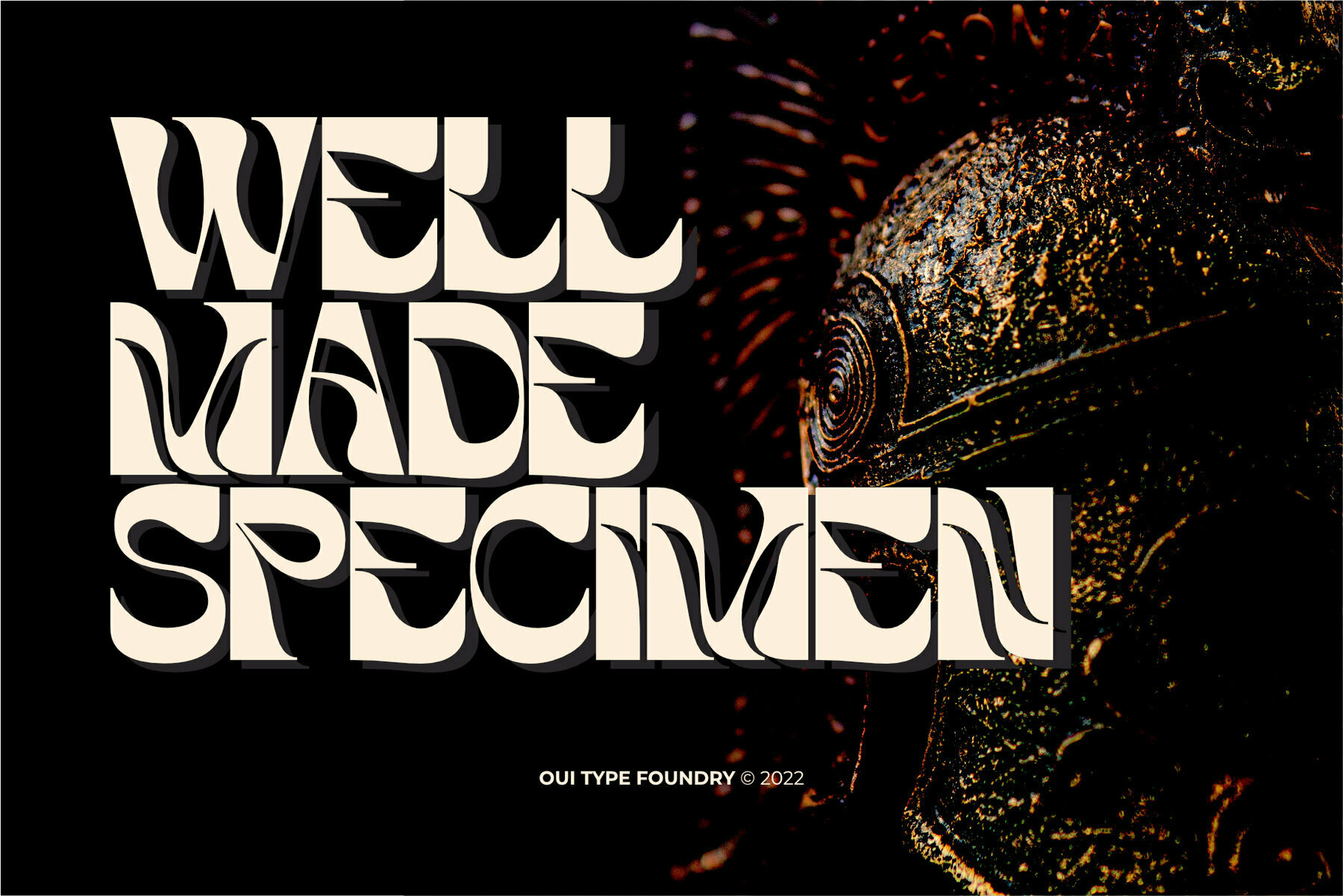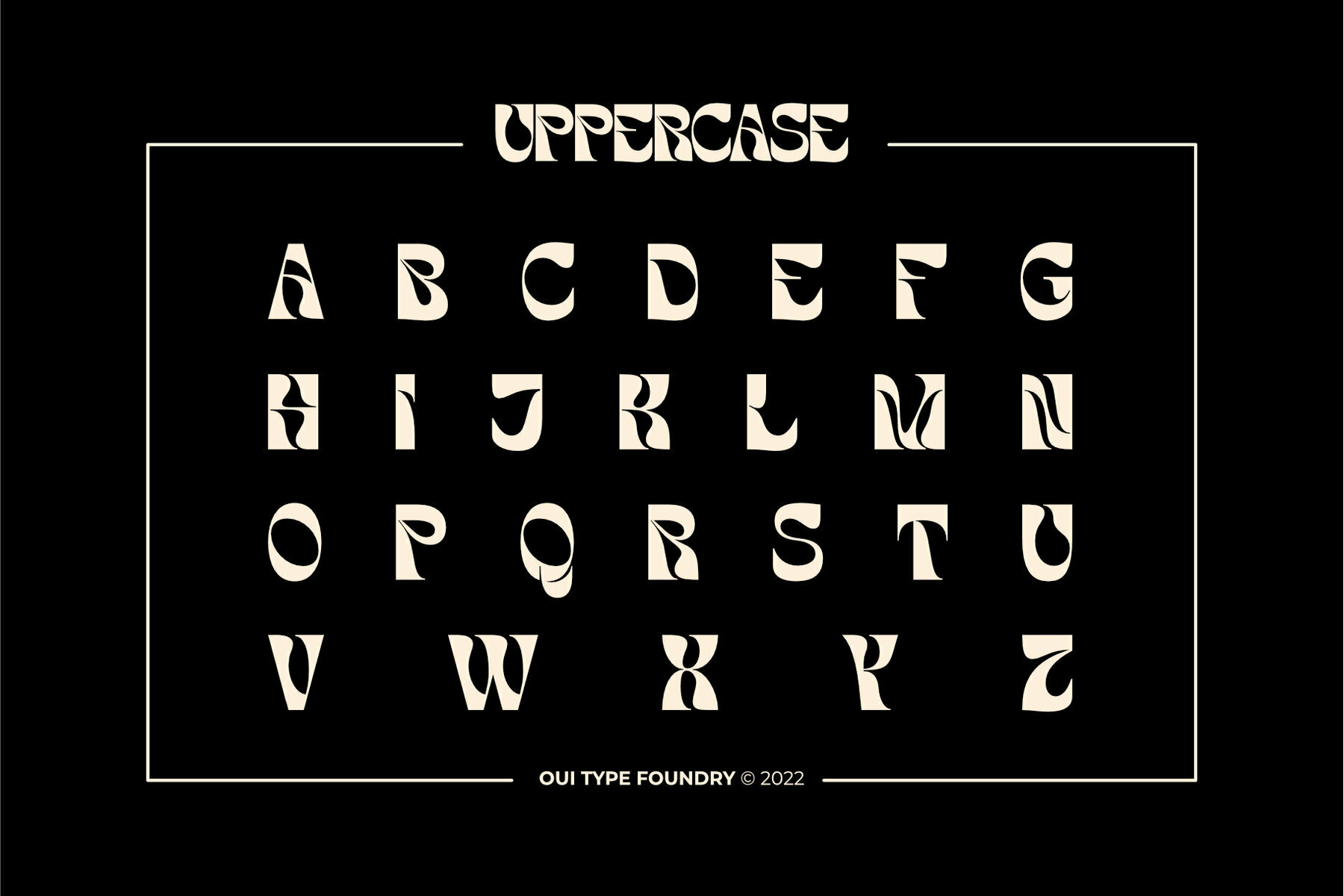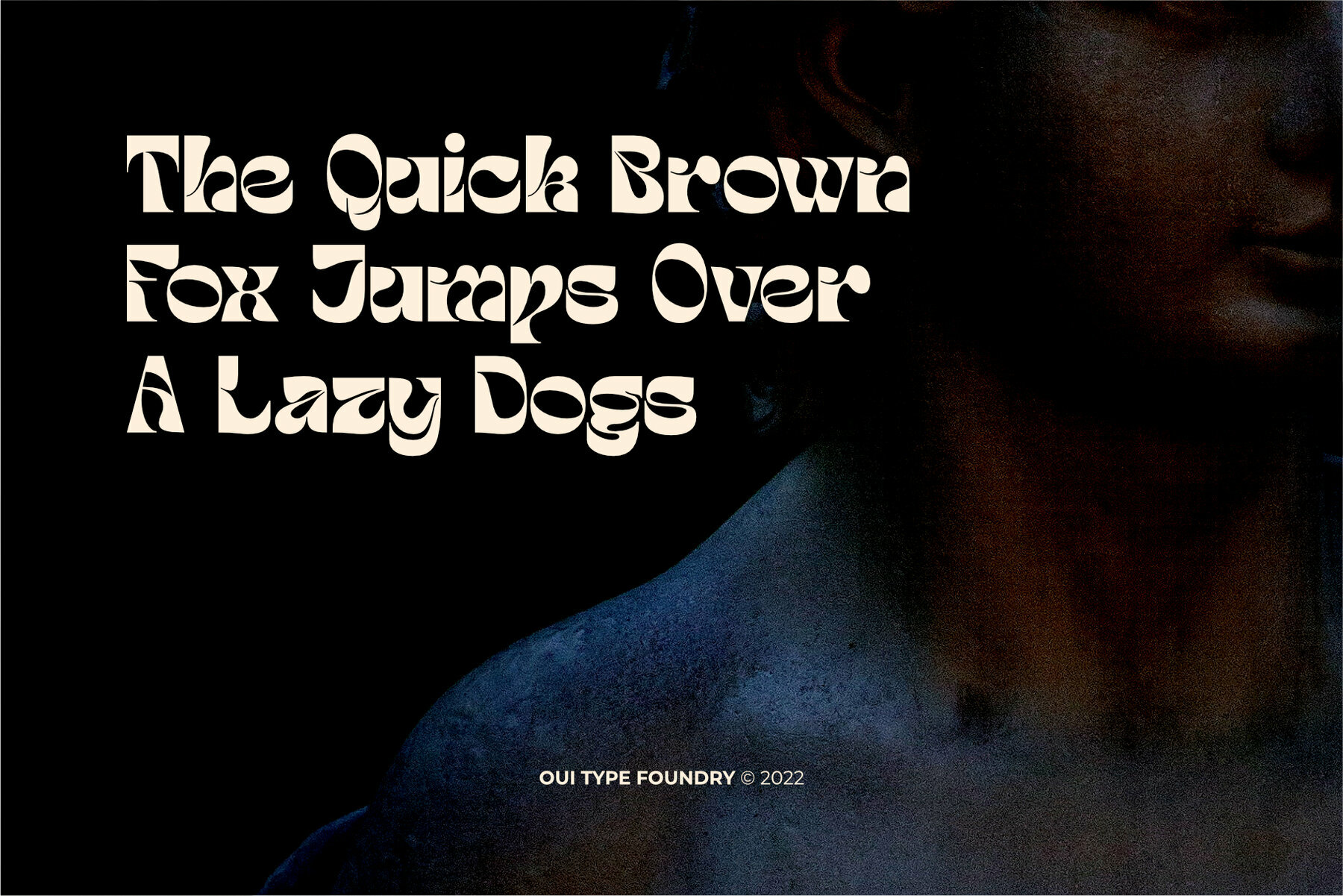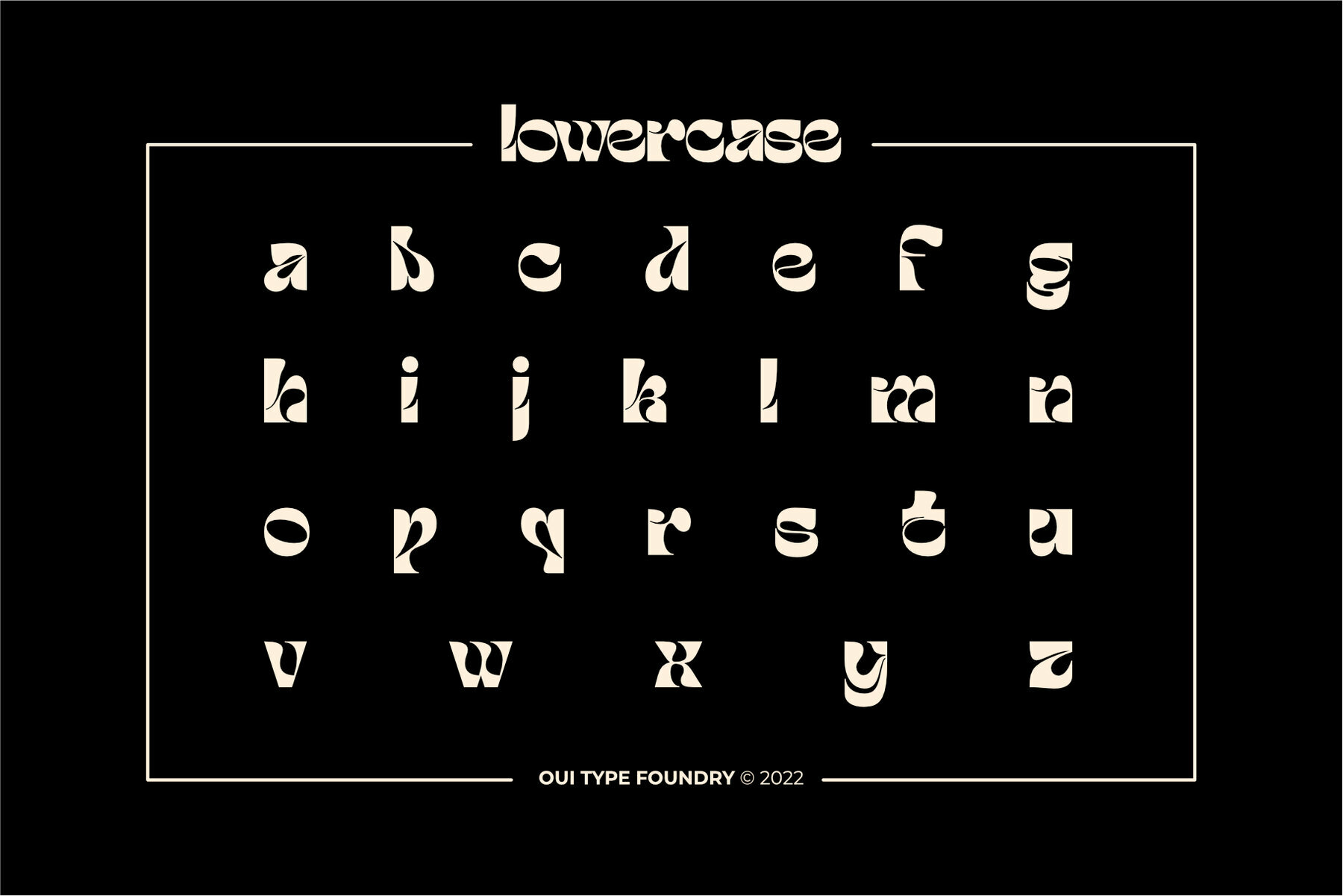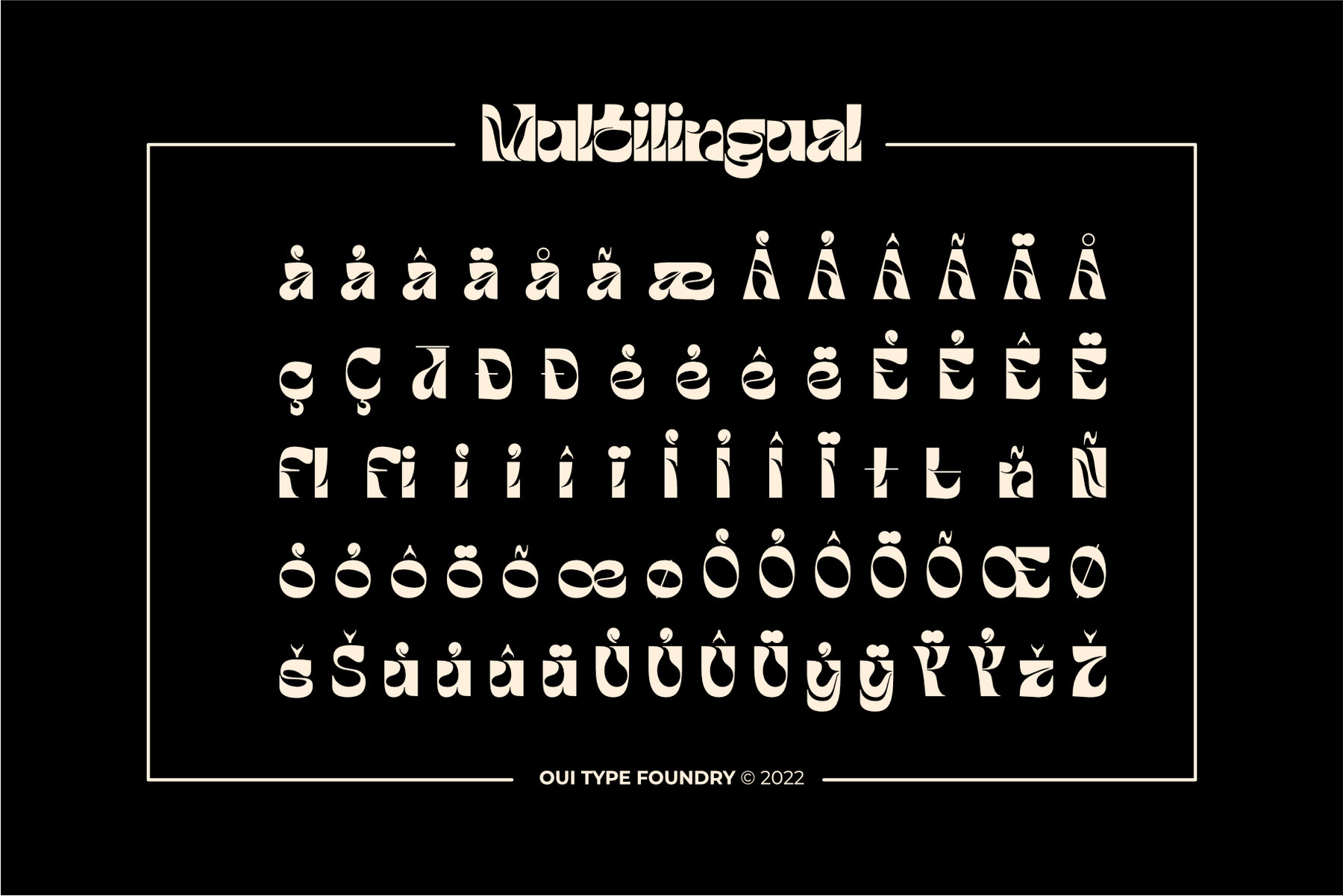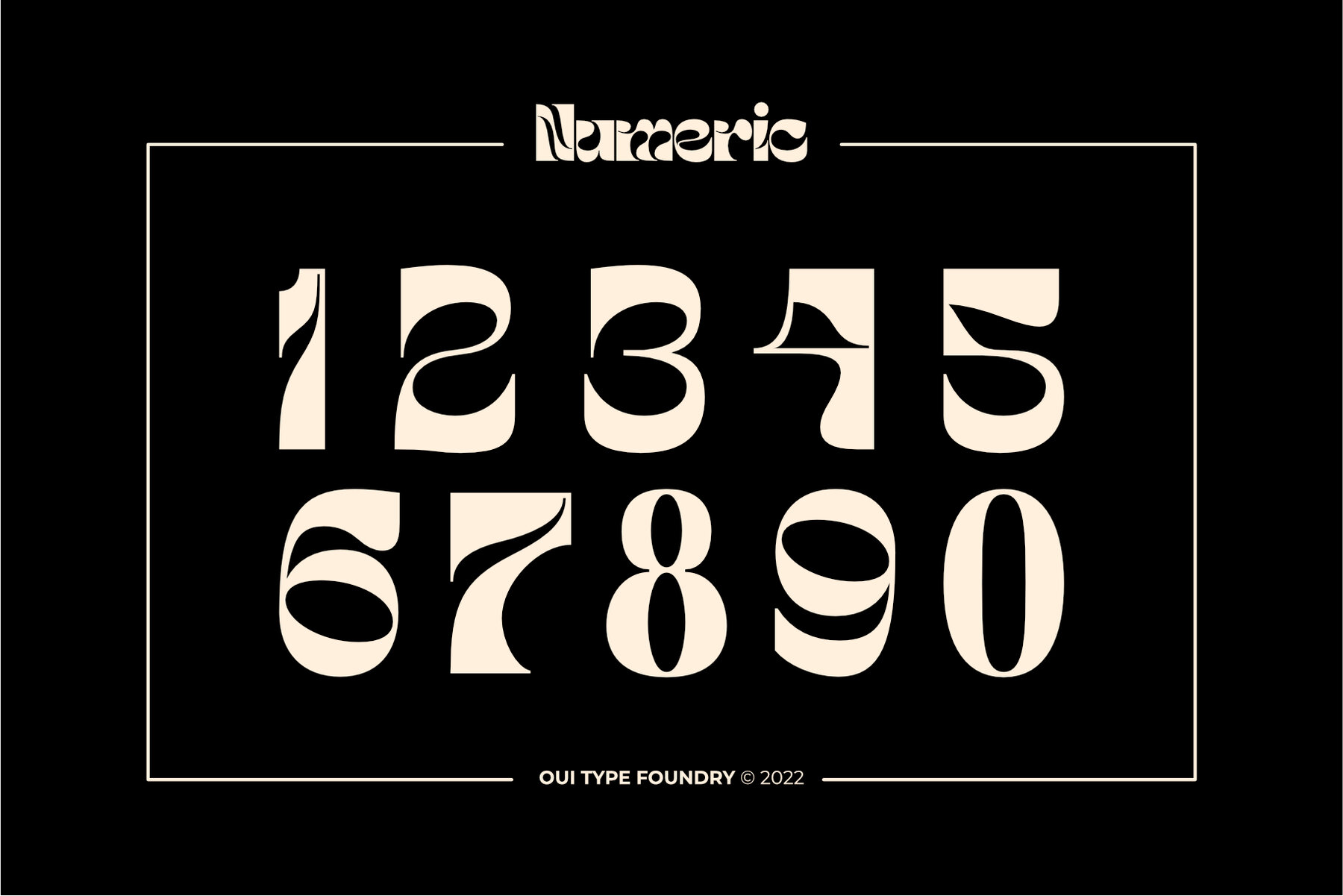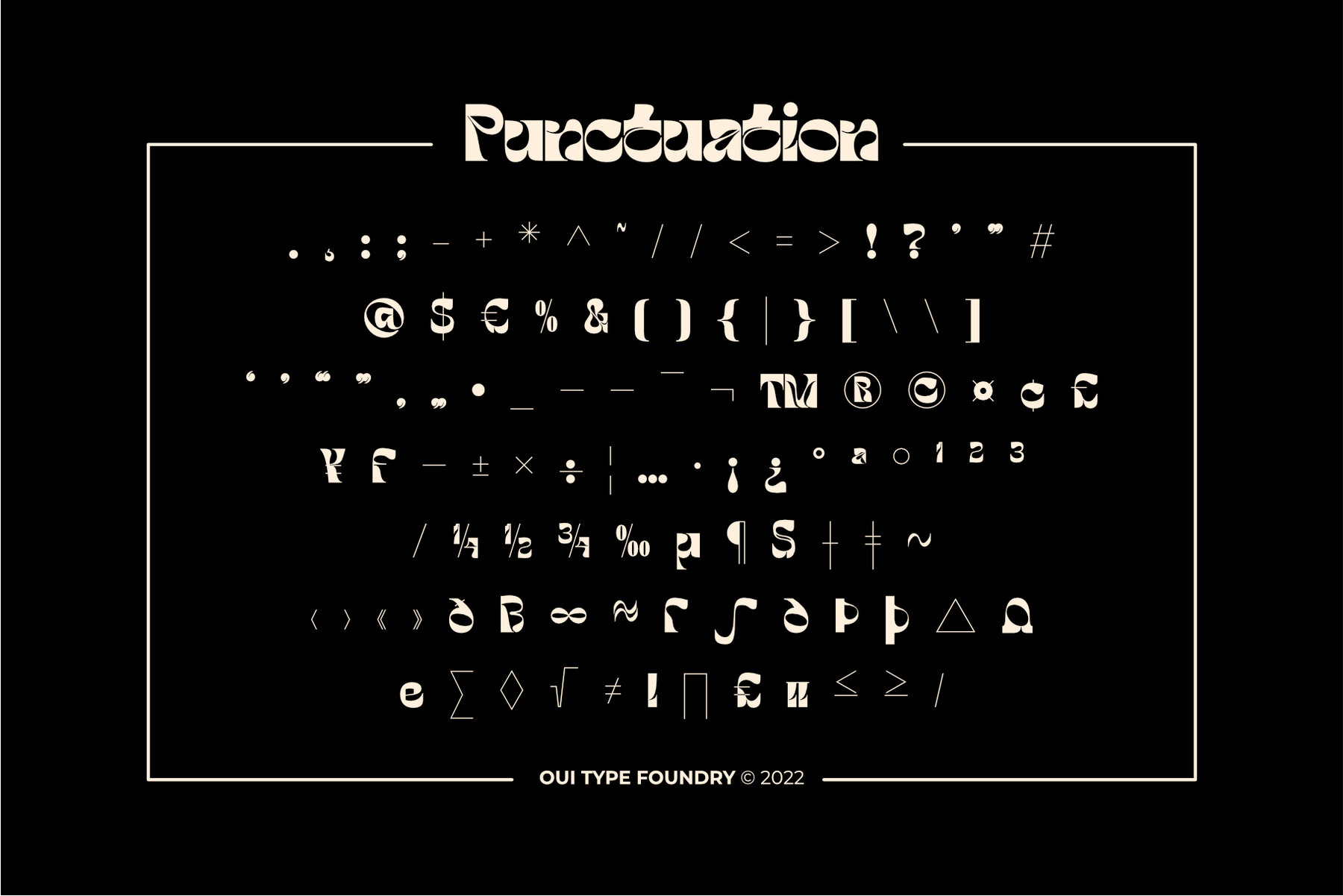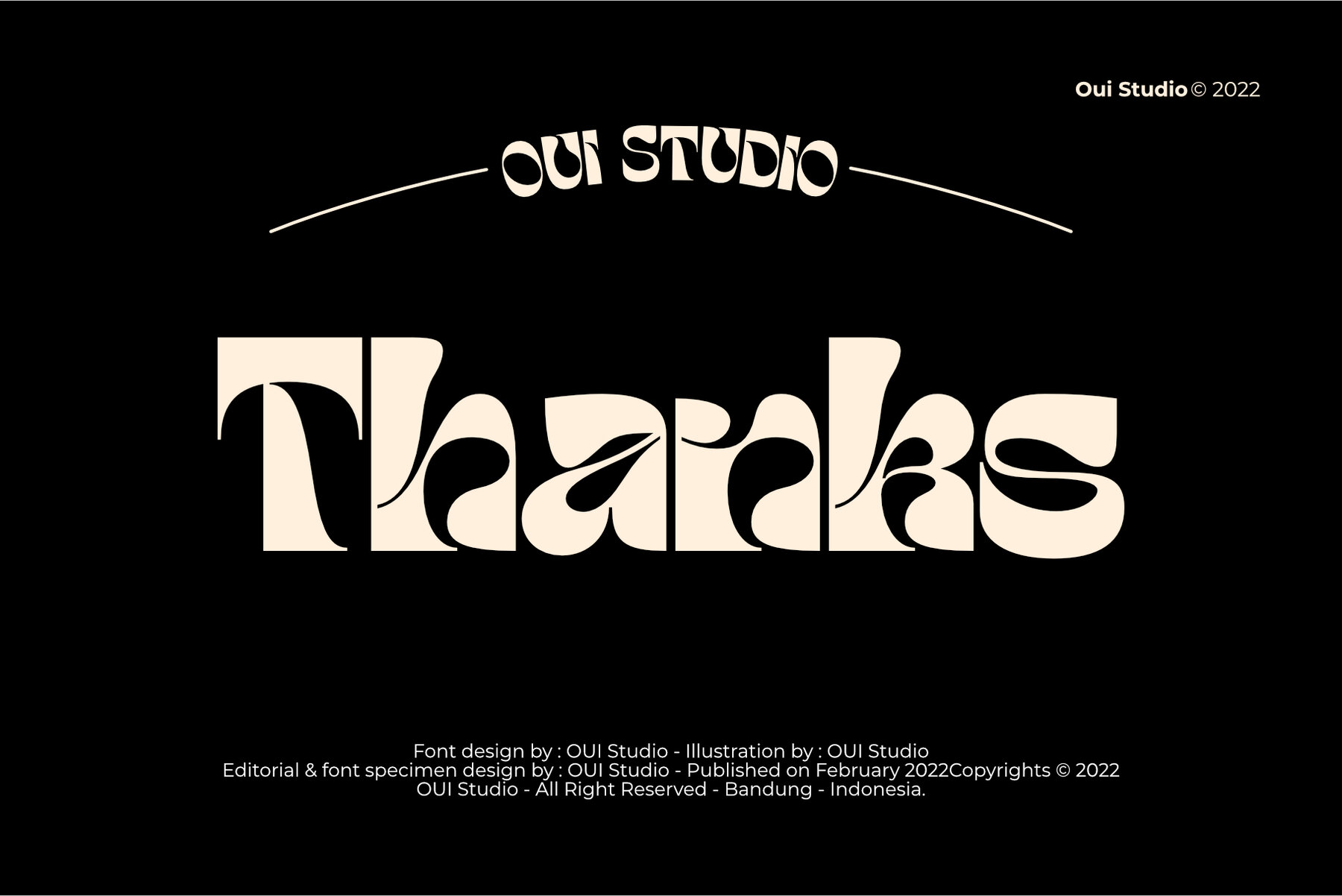
Tobias Font
Tobias Regular
Tobias merges the elegance of the Art Nouveau era with a contemporary aesthetic, offering designers a distinctive font choice for varied projects. Its unique style shines in branding, logos, packaging, headers, and titles. This makes it particularly suitable for creative endeavors ranging from t-shirt design to sophisticated visual presentations.Tobias: A Dynamic Art Nouveau Typeface